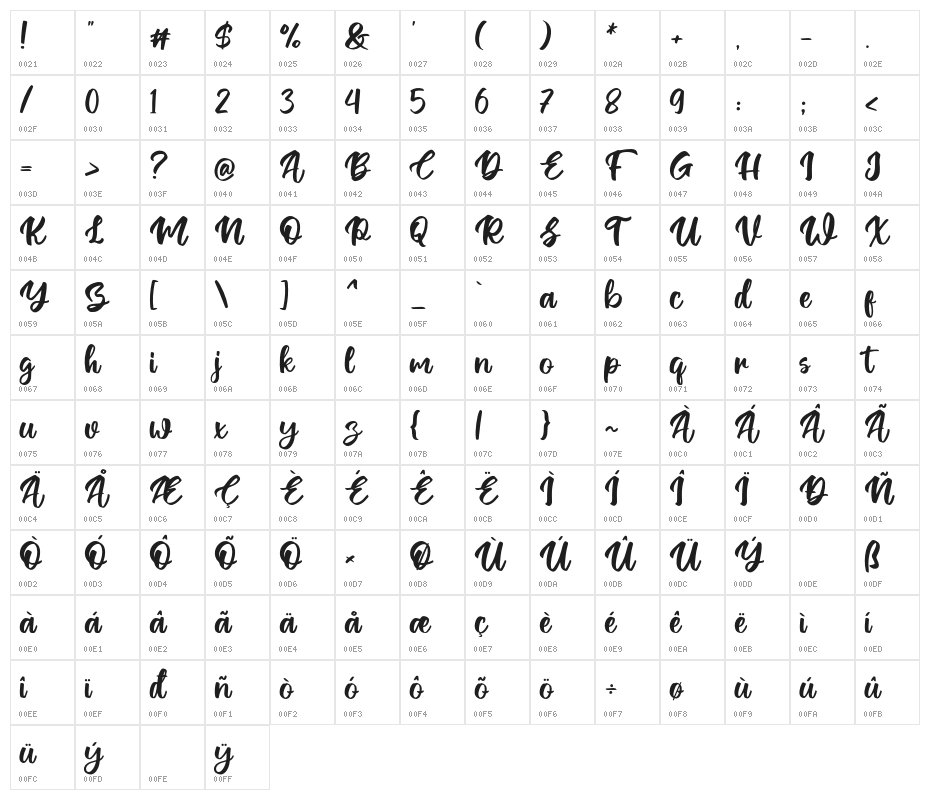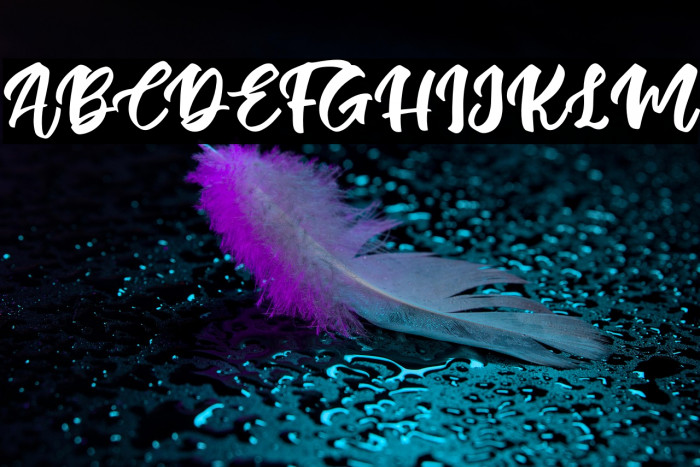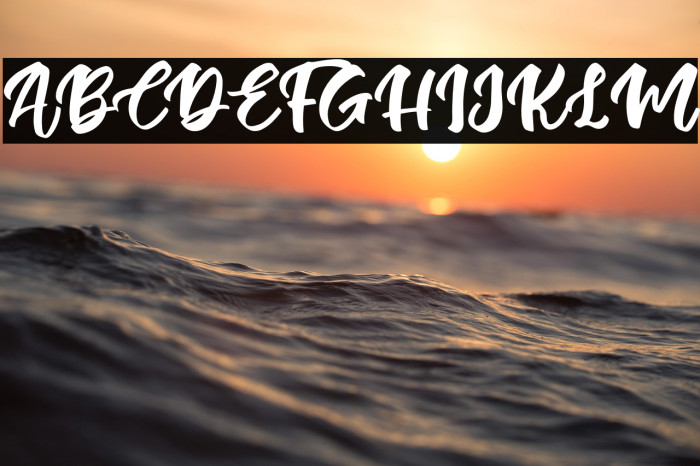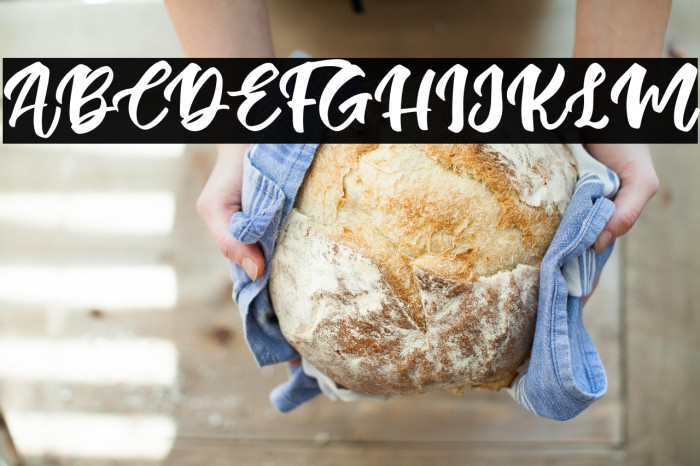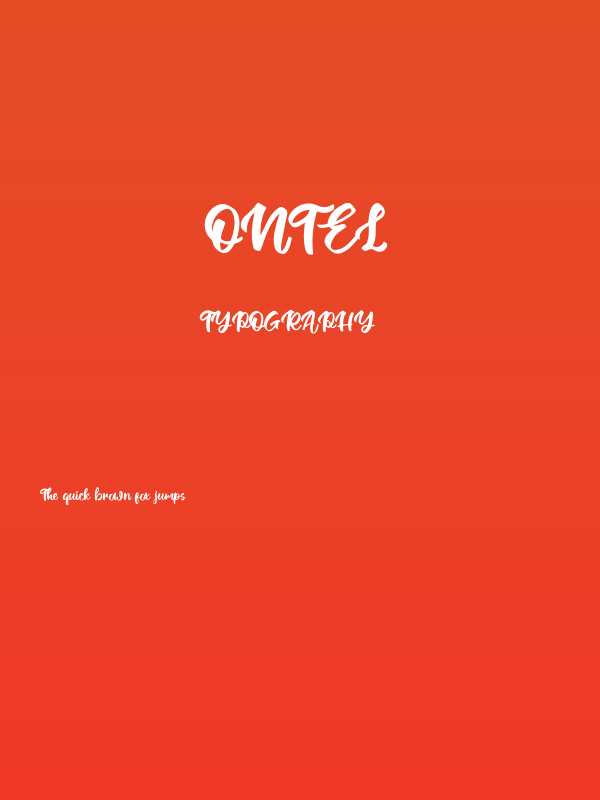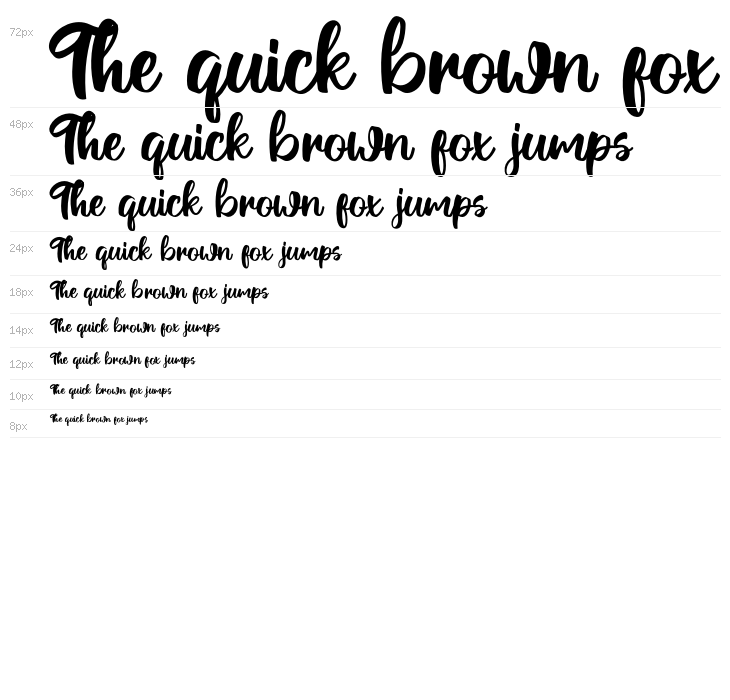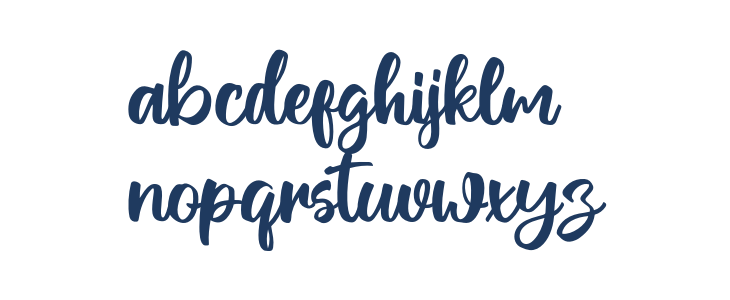
Ontel Font
Ontel Description
This font features a bold, cursive style with a flowing, handwritten appearance. The letters are connected, creating a seamless and elegant look. The uppercase letters are slightly larger and more pronounced, while the lowercase letters maintain a consistent flow. Numbers and special characters are designed to match the overall aesthetic, with smooth curves and a playful yet sophisticated feel. The font's boldness makes it stand out, while its cursive nature adds a touch of elegance and creativity.